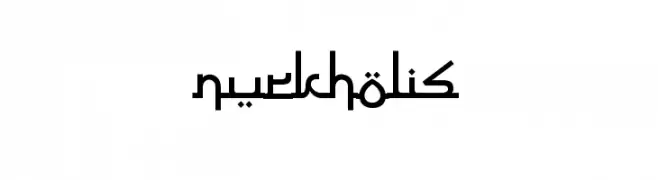
Ornate floral and decorative vignette symbols.
A decorative set of tribal-inspired figures with bold, intricate designs.
A collection of vintage-style illustrations with intricate detailing.
The image does not depict a valid font.
Surreal, illustrated display font with narrative scenes for each character.
A collection of decorative symbols and emblems with intricate details.
A surreal and artistic collection of abstract illustrations.
A decorative frame set with both ornate and minimalist rectangular designs.
An ornate, decorative font with intricate embellishments and a historical feel.
A playful, cursive font with flowing loops and decorative swirls.
A bold, geometric font with rounded edges and a modern, playful style.
A bold, rounded font with a modern, geometric style.
A modern, geometric font with rounded edges and a clean, uniform appearance.
A playful, whimsical handwritten font with flowing cursive letters.
An elegant, flowing script font with moderate contrast and dynamic slant.
An elegant, italic script font with flowing, cursive characters.
A decorative, fantasy-inspired font with sharp, angular strokes and an enigmatic style.
An elegant and flowing script font with ornate uppercase letters and fluid lowercase characters.
An elegant, flowing script font with a handwritten style.
A modern sans-serif font with geometric shapes and uniform strokes.
A modern, condensed sans-serif font with clean lines and excellent legibility.
A collection of abstract geometric shapes and symbols.
A geometric symbol font with a technical, schematic appearance.
Abstract geometric decorative font.
A modular, geometric symbol font with a pixel-art style.